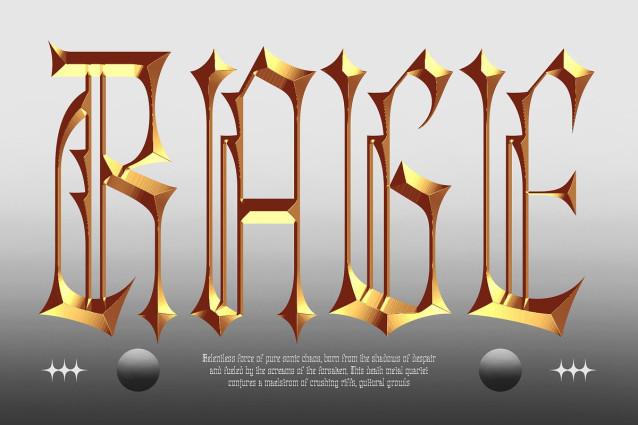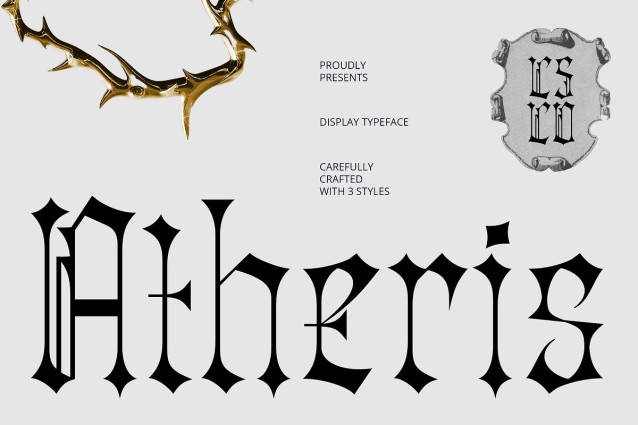
Atheris Blackletter Font
Atheris Blackletter Font is a modern blackletter display font that reinterprets traditional broken letterforms with a sleek and experimental twist. While staying true to the sharp, dramatic structure of classic blackletter, Atheris introduces contemporary elements like balanced proportions, refined spacing, and subtle geometric features for a fresh, innovative feel.
Bold Structure with Contemporary Balance With its bold, angular design, Atheris delivers the powerful presence typical of blackletter fonts. However, the cleaner and more balanced construction allows for better readability and modern adaptability. This balance between historic drama and modern clarity makes it suitable for a wide range of visual styles.
Gothic-Modern and Retro-Futuristic Vibes Atheris evokes a distinctive mood that bridges eras—combining gothic authority with modern minimalism and even retro-futuristic aesthetics. Whether you’re designing for dark, avant-garde fashion or an edgy, conceptual editorial layout, Atheris injects intense personality and style into your work.
Perfect for Bold, Character-Driven Projects Designed for impactful headlines and expressive visual identities, Atheris is ideal for music branding, fashion statements, event posters, and bold editorial pieces. Its fusion of blackletter heritage and modern innovation makes it a powerful choice for creatives seeking a font with edge, attitude, and timeless flair.